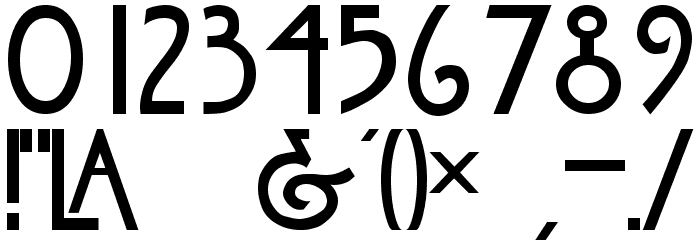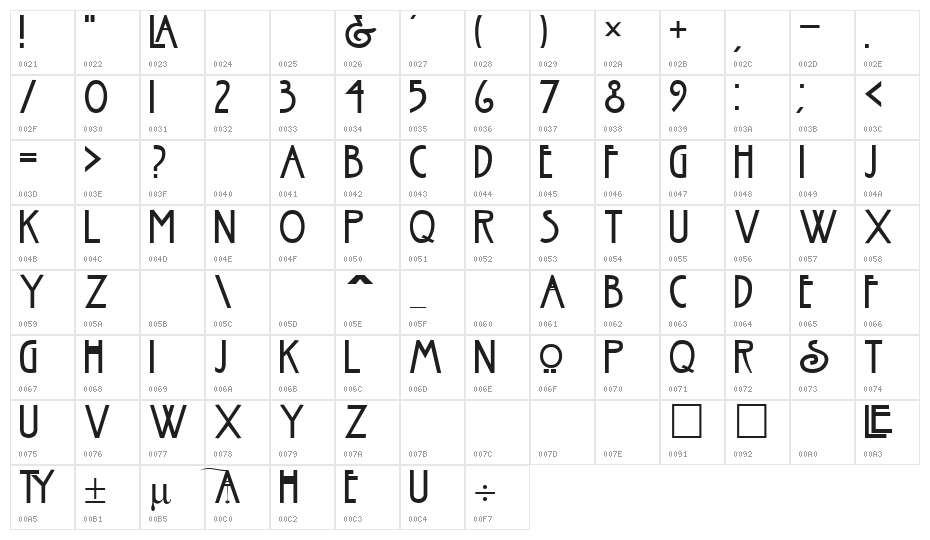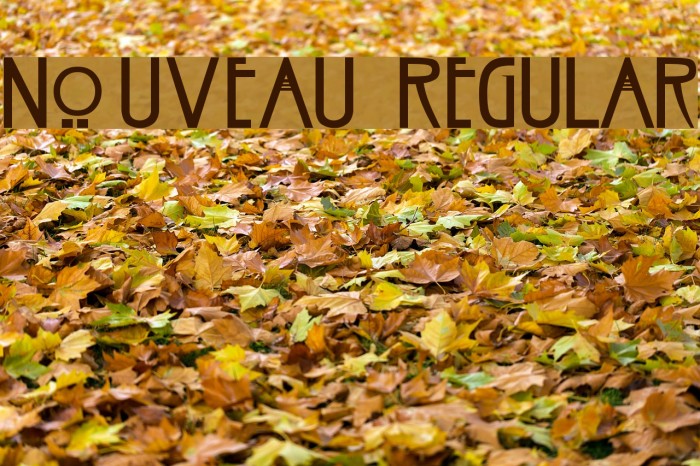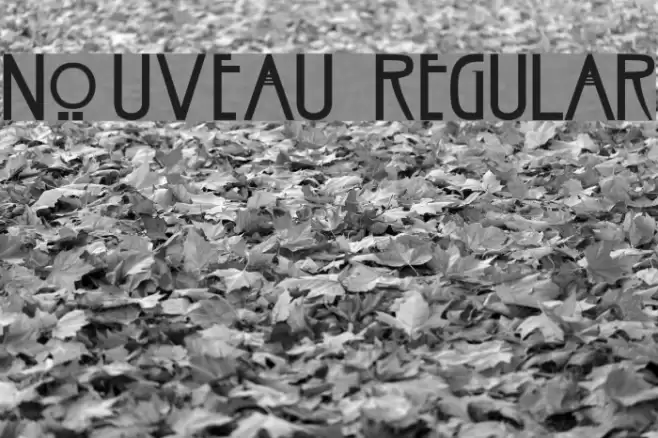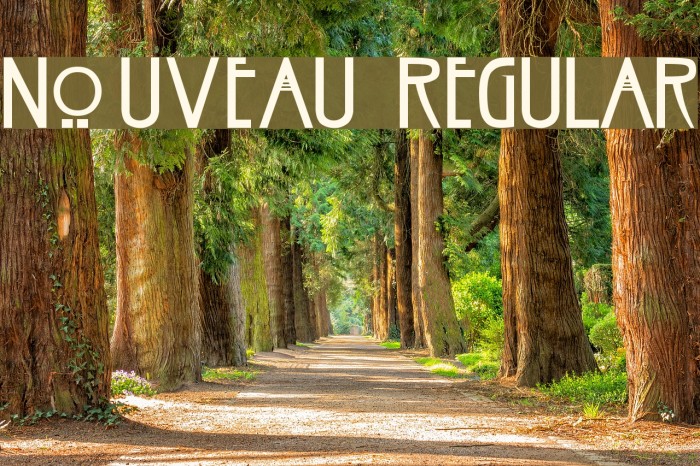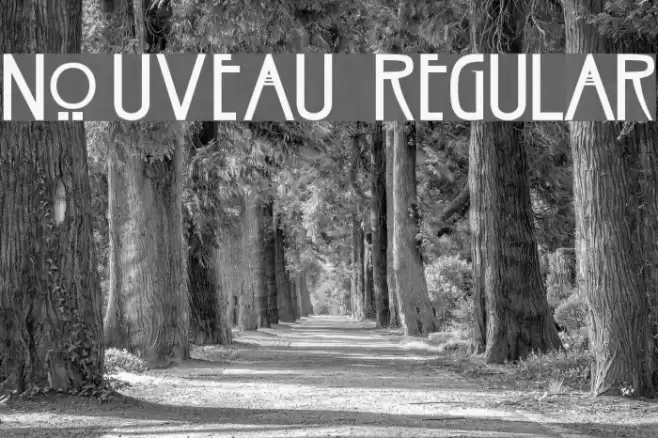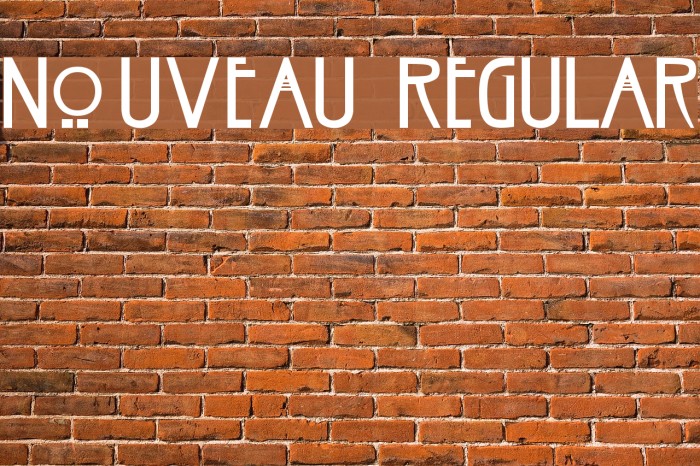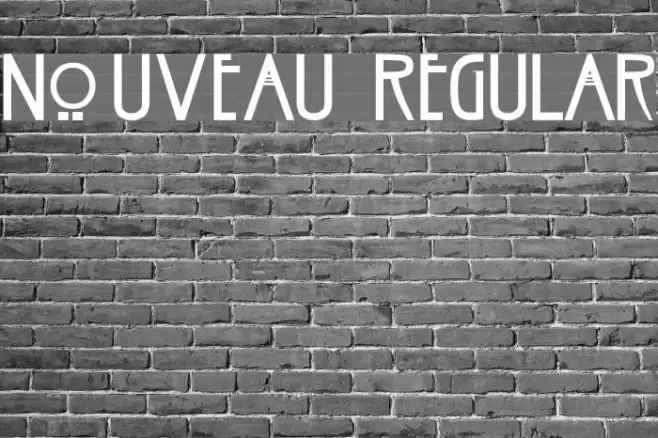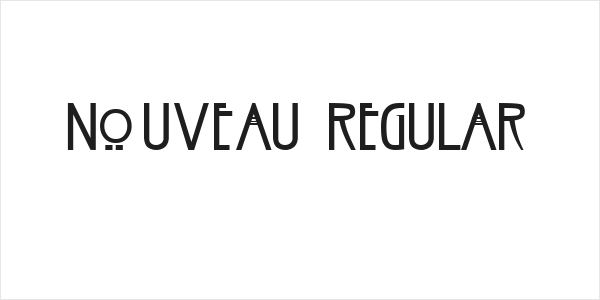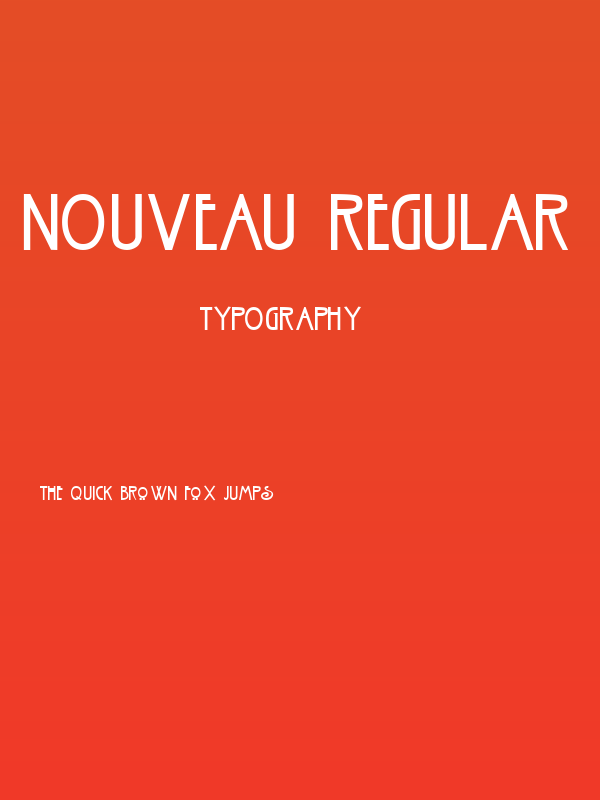
Nouveau Regular Font
Nouveau Regular Description
This font features a distinct Art Nouveau style, characterized by its elegant and flowing lines. The uppercase letters are tall and slender, with a slight curvature that adds a touch of sophistication. The lowercase letters maintain a consistent style, complementing the uppercase with their own unique flair. The numerals are bold and slightly angular, providing a modern twist to the overall design. Special characters are creatively designed, incorporating the same flowing lines and curves that define the font's aesthetic. This font is perfect for projects that require a touch of elegance and artistic flair.
| Overall Style | Art Nouveau, Decorative |
| Proposed Projects | Ideal for branding, invitations, posters, and any design project that seeks to convey elegance and artistic sophistication. |